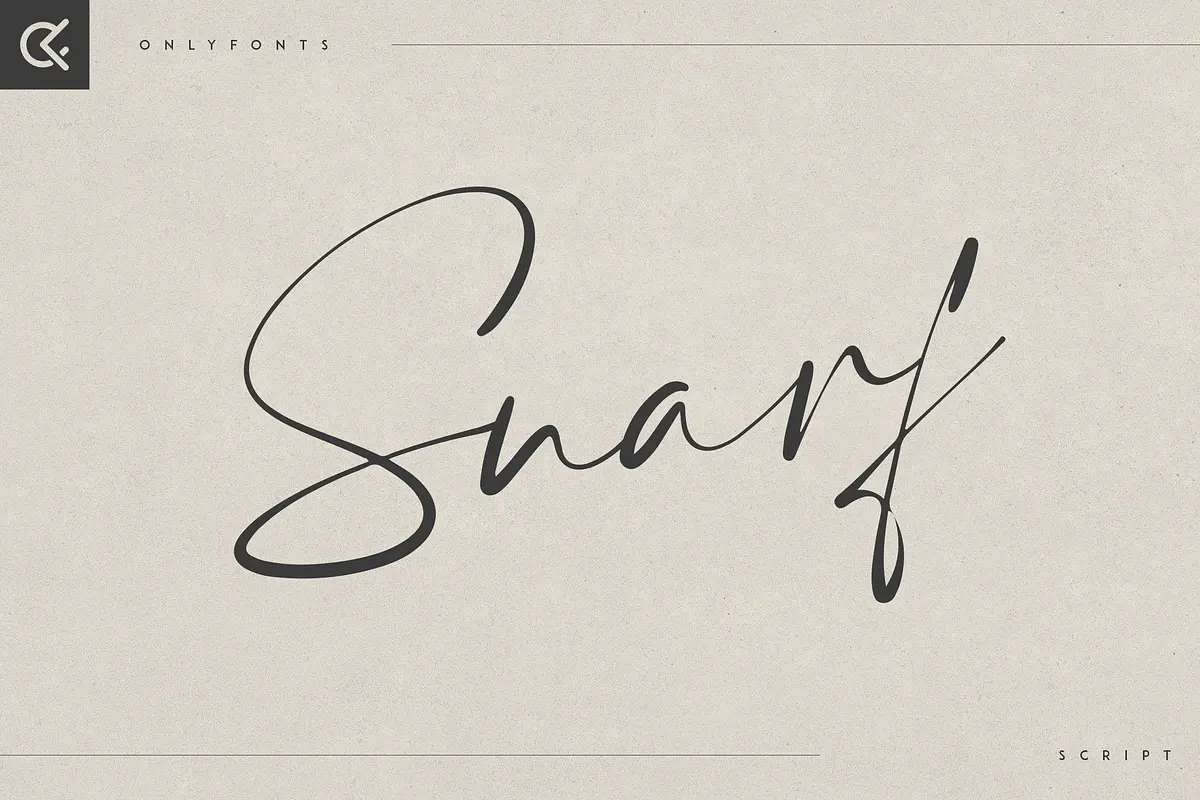
Snarf modern script Free Download
Snarf Modern Script Font Free Download
Add a touch of organic and casual elegance to your designs with Snarf Modern Script Font — a versatile script font featuring ligature glyphs and multilingual support. Ideal for branding projects, homeware designs, product packaging, magazine headers, or as a stylish text overlay on background images.
Features:
• Uppercase, lowercase, numerals, punctuation, and symbols
• Ligature glyphs
• Multilingual support